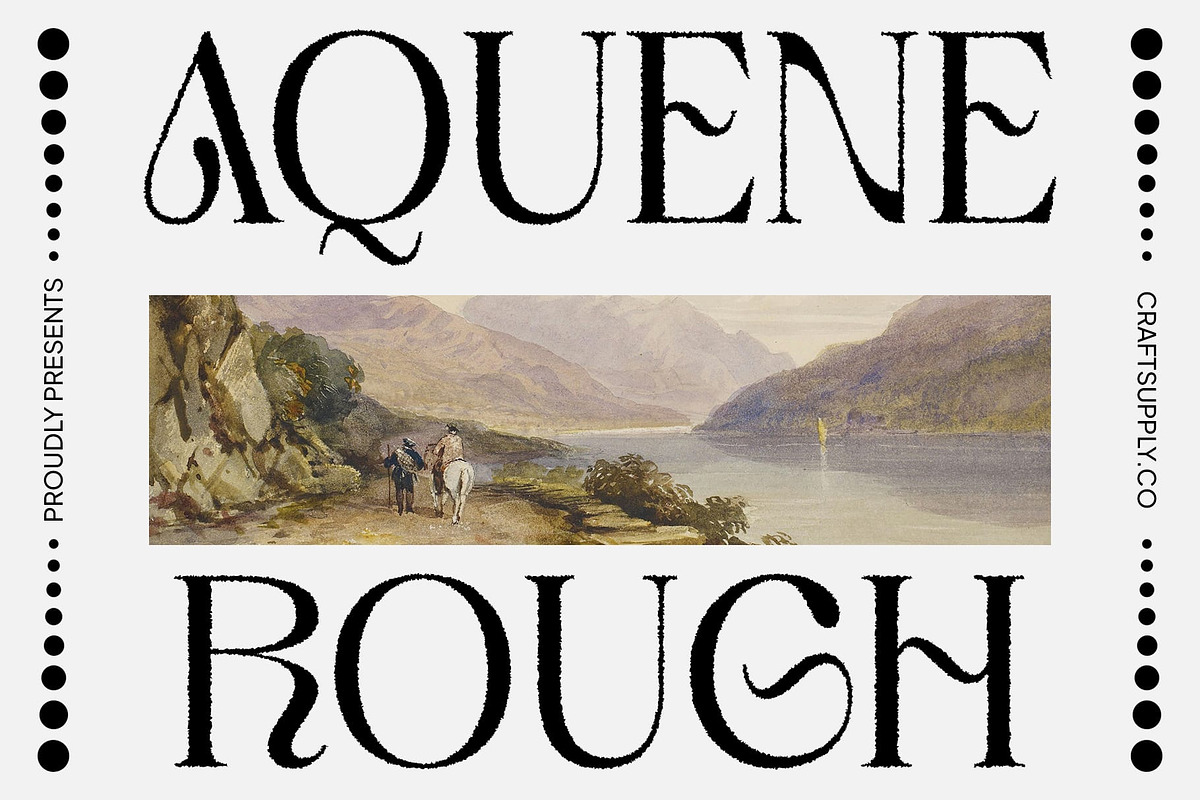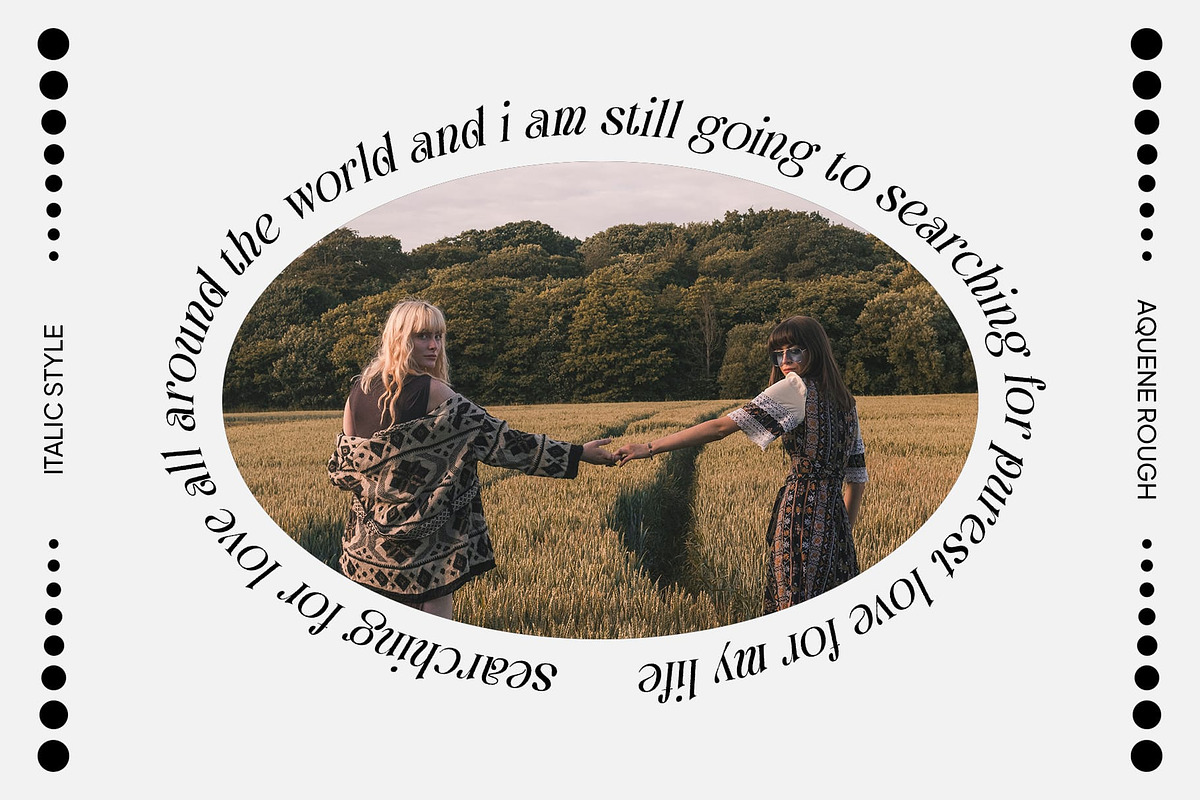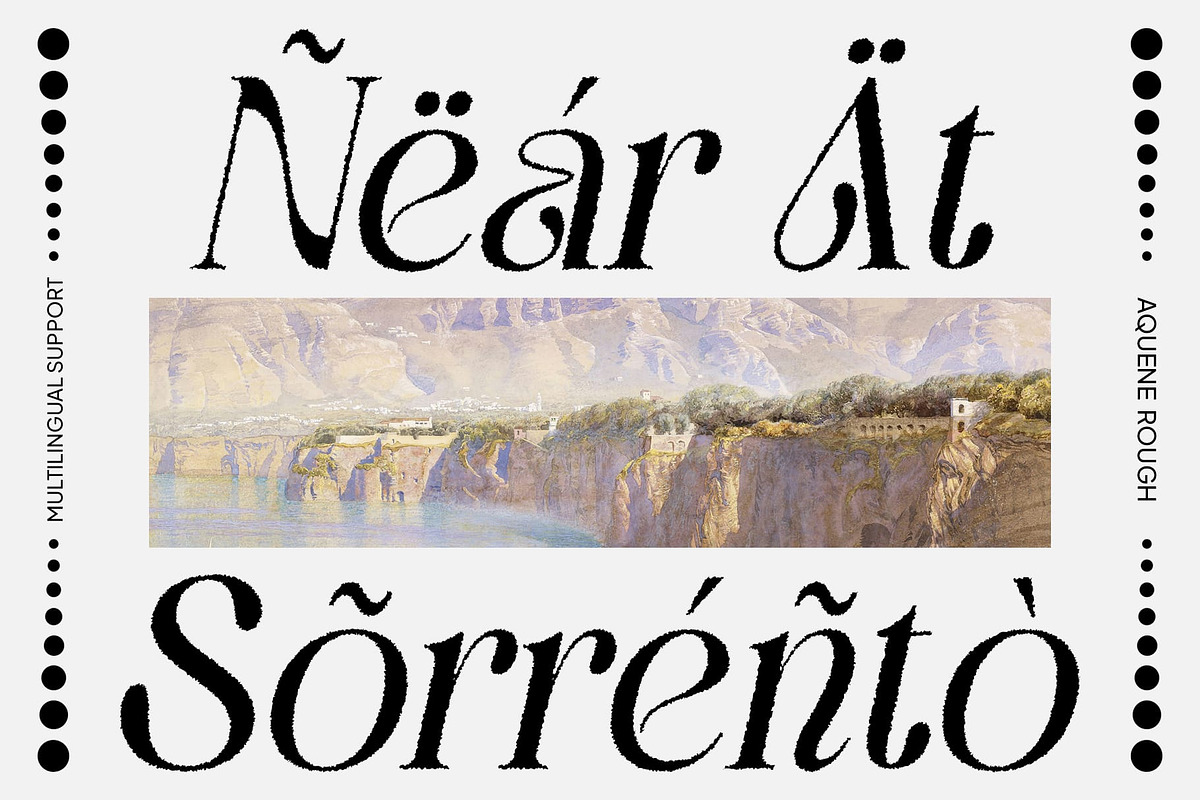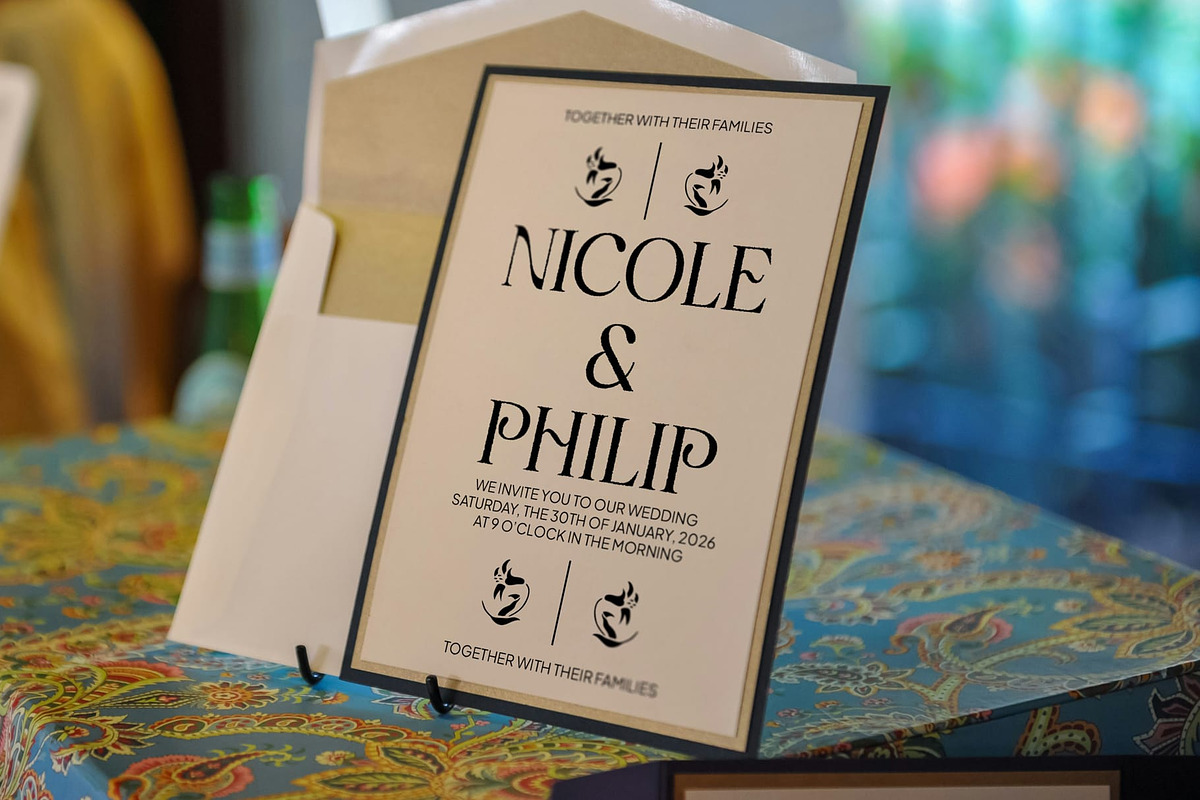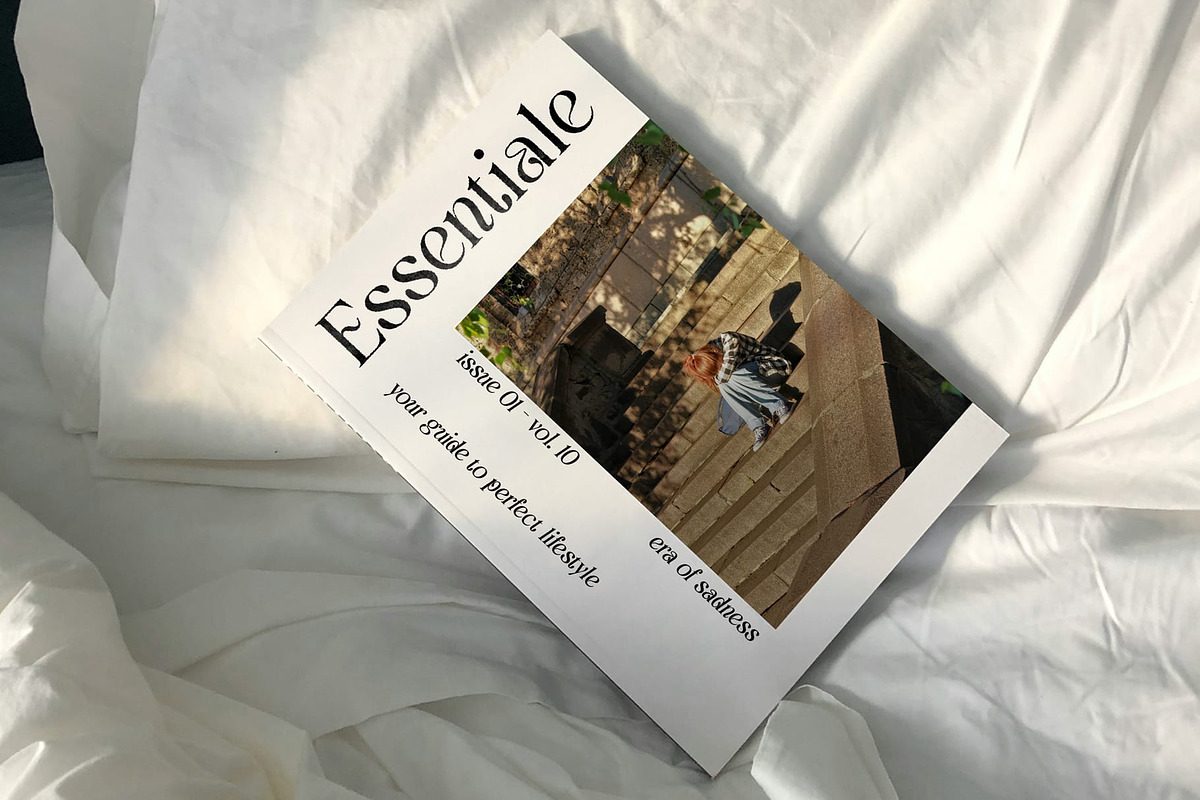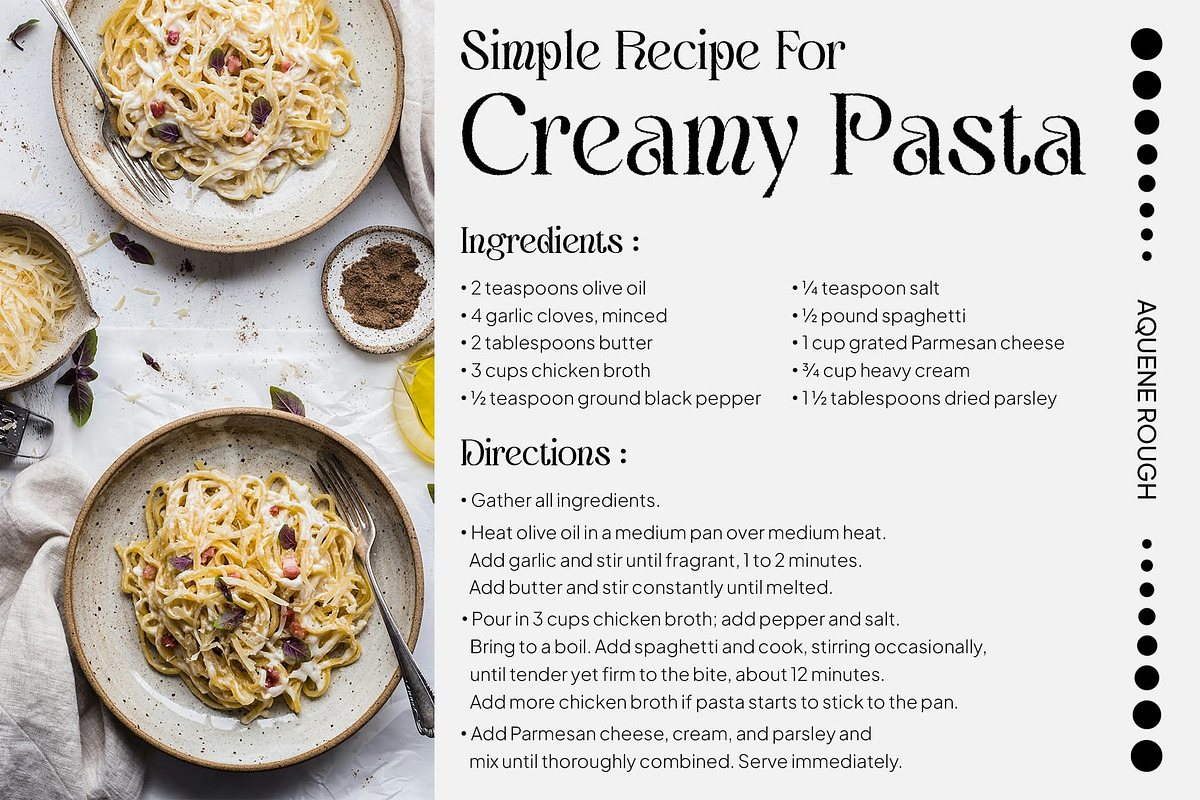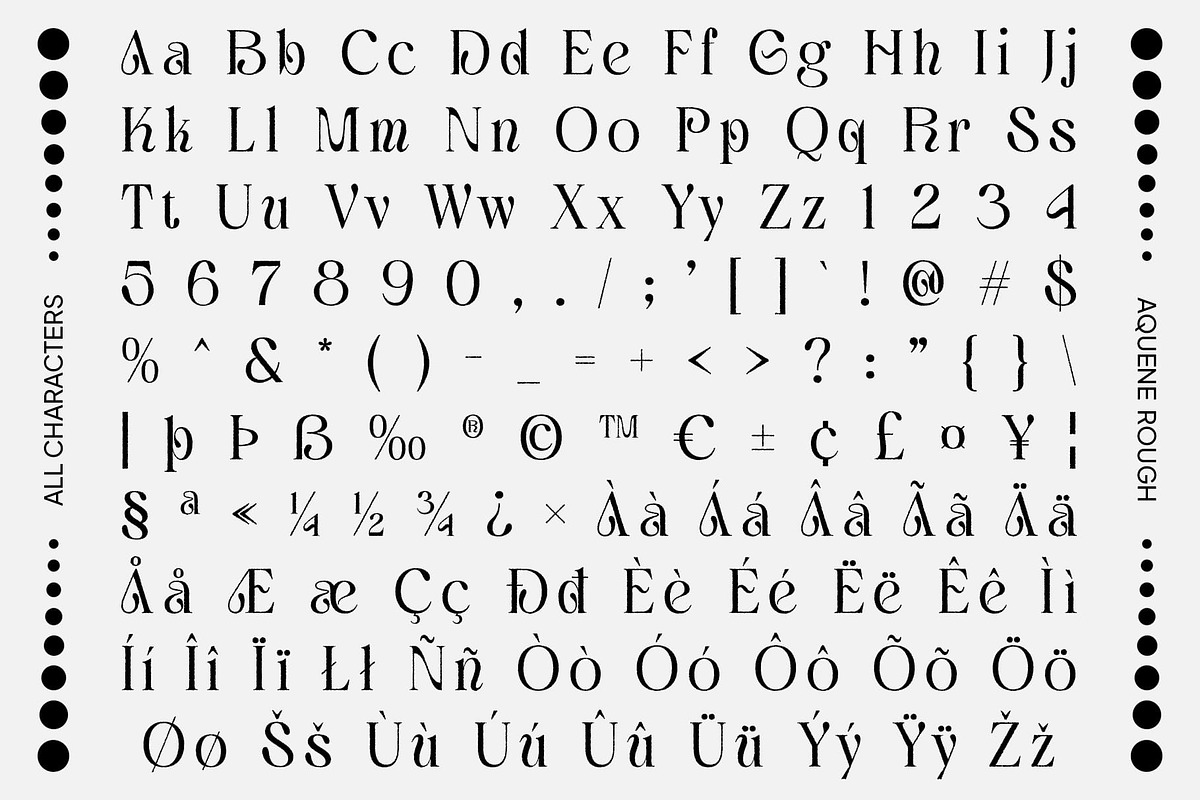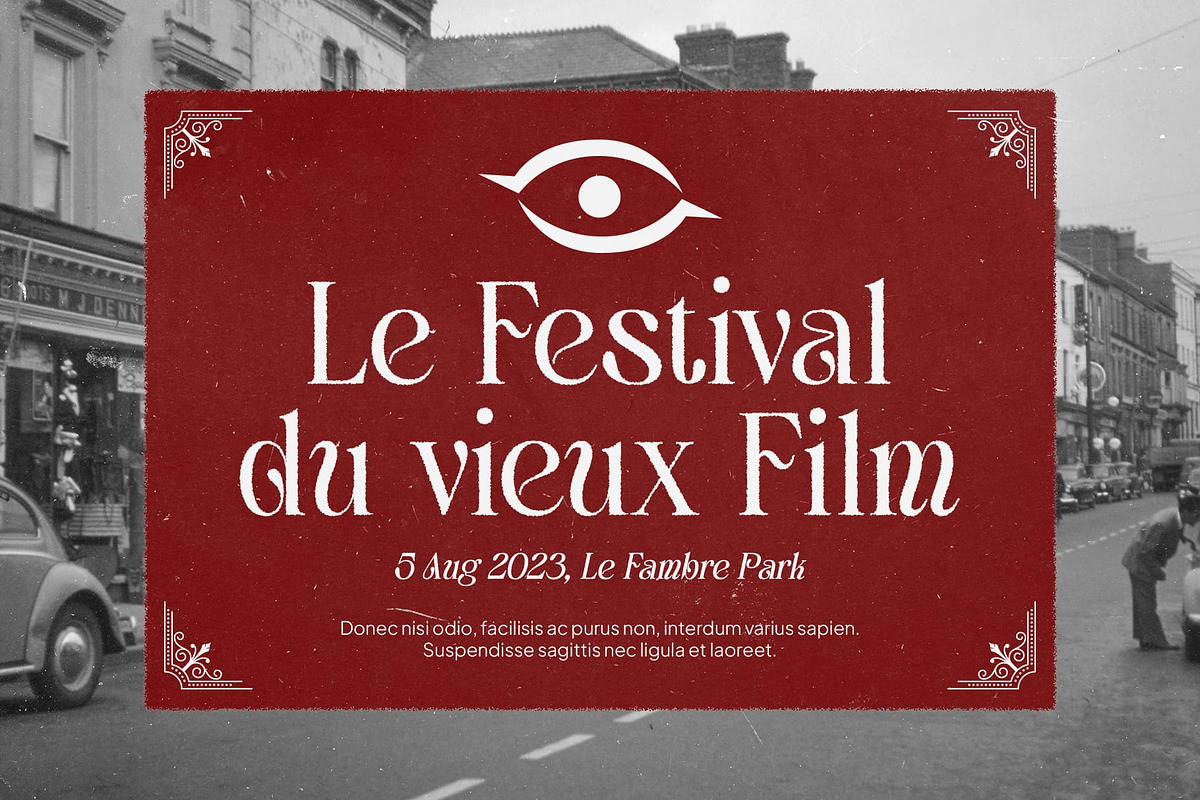
Aquene Rough
Aquene Rough Font: Art Nouveau Display Serif with Rough Effect
Charming Elegance with Art Nouveau Influence Aquene Rough is an Art Nouveau-inspired display serif font that brings classic luxury and vintage charm to the forefront. Its gracefully curved shapes and intricate decorative details reflect the elegant style of the Art Nouveau era, creating a font that is both artistic and sophisticated.
Intricate Decorative Details Featuring elaborate curves and ornamental flourishes, Aquene Rough exudes a timeless elegance that enhances any design. The font’s decorative elements are thoughtfully crafted to evoke the beauty and sophistication of vintage styles, adding a touch of classic luxury to modern projects.
Unique Texture with a Rough Effect The rough effect introduces a dynamic texture, giving Aquene Rough a distinctive and engaging character. This combination of smooth, flowing lines and textured roughness results in a font that stands out with a unique blend of refinement and artistic flair.
Sophisticated and Versatile Ideal for designs that aim to highlight elegance and creativity, Aquene Rough is perfect for luxury branding, art posters, editorial layouts, and more. Its fusion of Art Nouveau aesthetics with a rough texture makes it a versatile choice for projects seeking to combine sophistication with a distinctive visual impact.